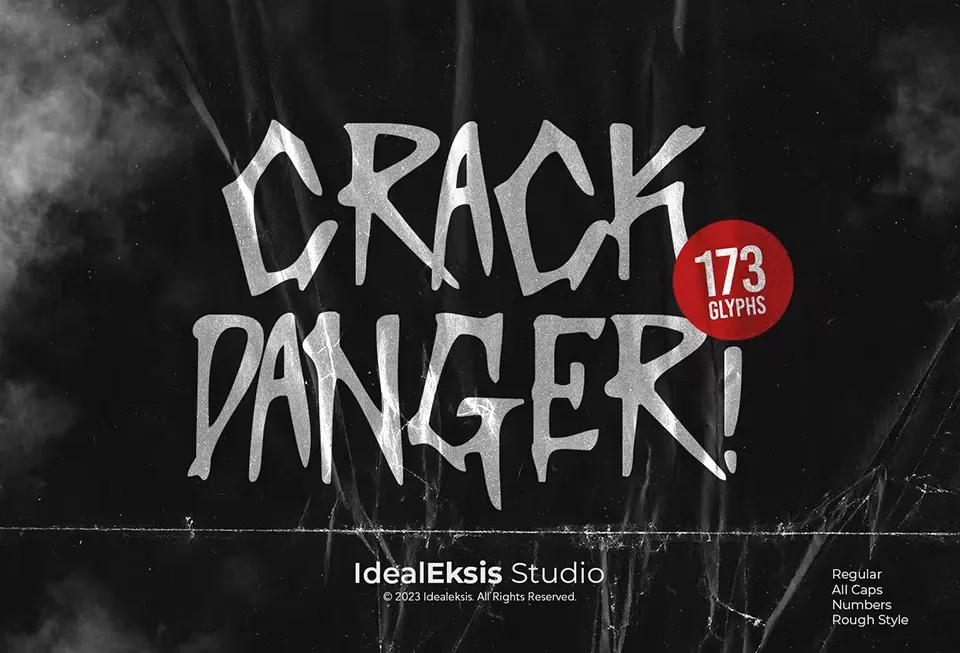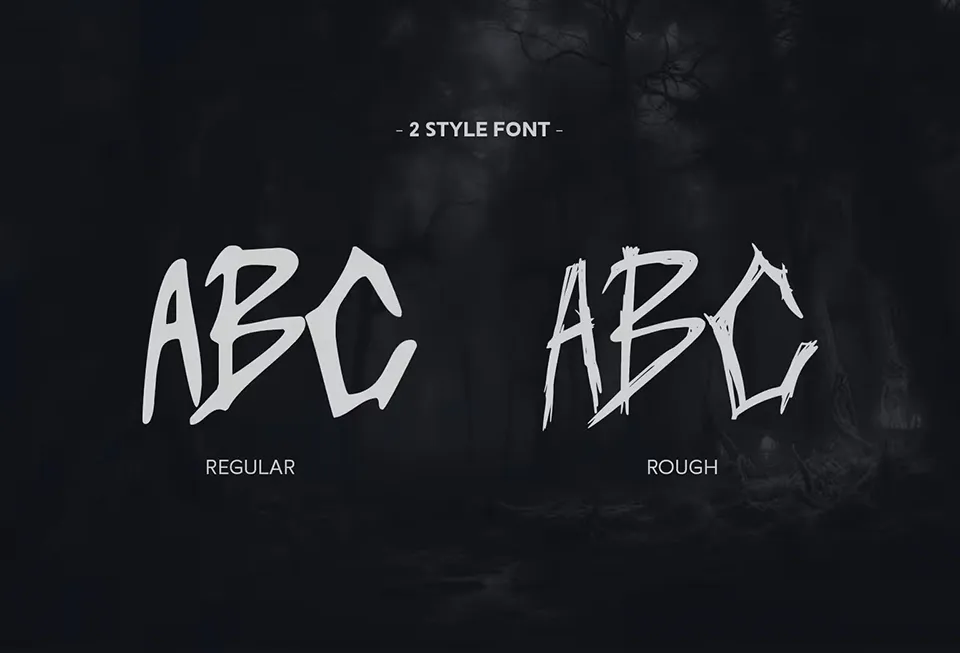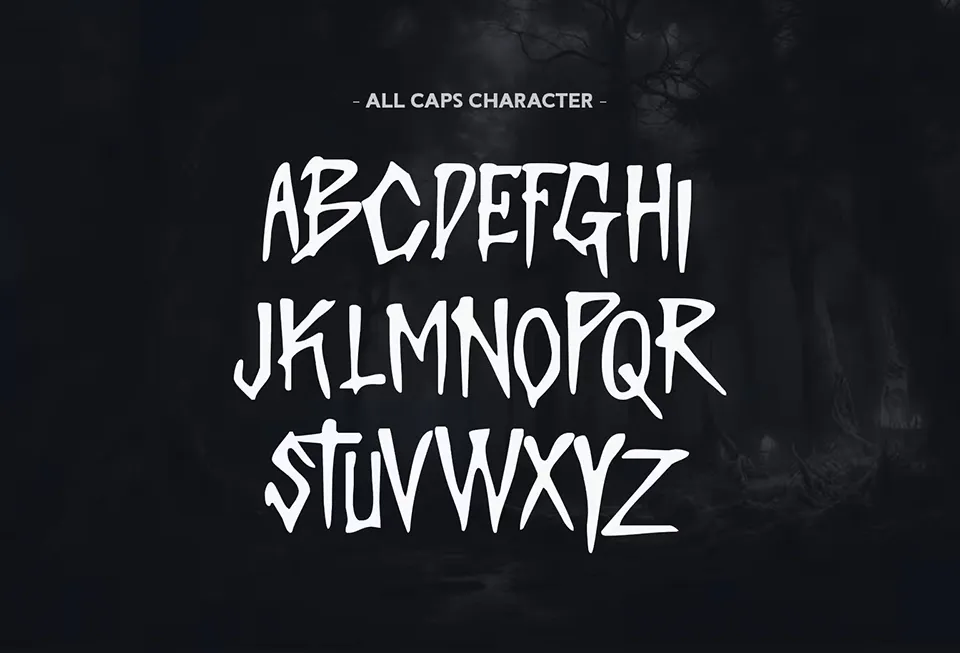
Crack Danger Font
Crack Danger Font is a bold and unsettling horror font designed to evoke suspense and unease. Created by IdealEksis Studio, this chilling typeface features jagged edges, irregular strokes, and threatening angles perfect for projects that demand an atmosphere of darkness and foreboding. With 173 glyphs including uppercase characters, numbers, and multilingual support, Crack Danger comes in both Regular and Rough styles. Its distressed aesthetic makes it ideal for horror movie posters, Halloween designs, gaming titles, album covers, and edgy branding. This versatile display font works seamlessly across design platforms to bring an authentic sense of danger and intensity to your creative projects.